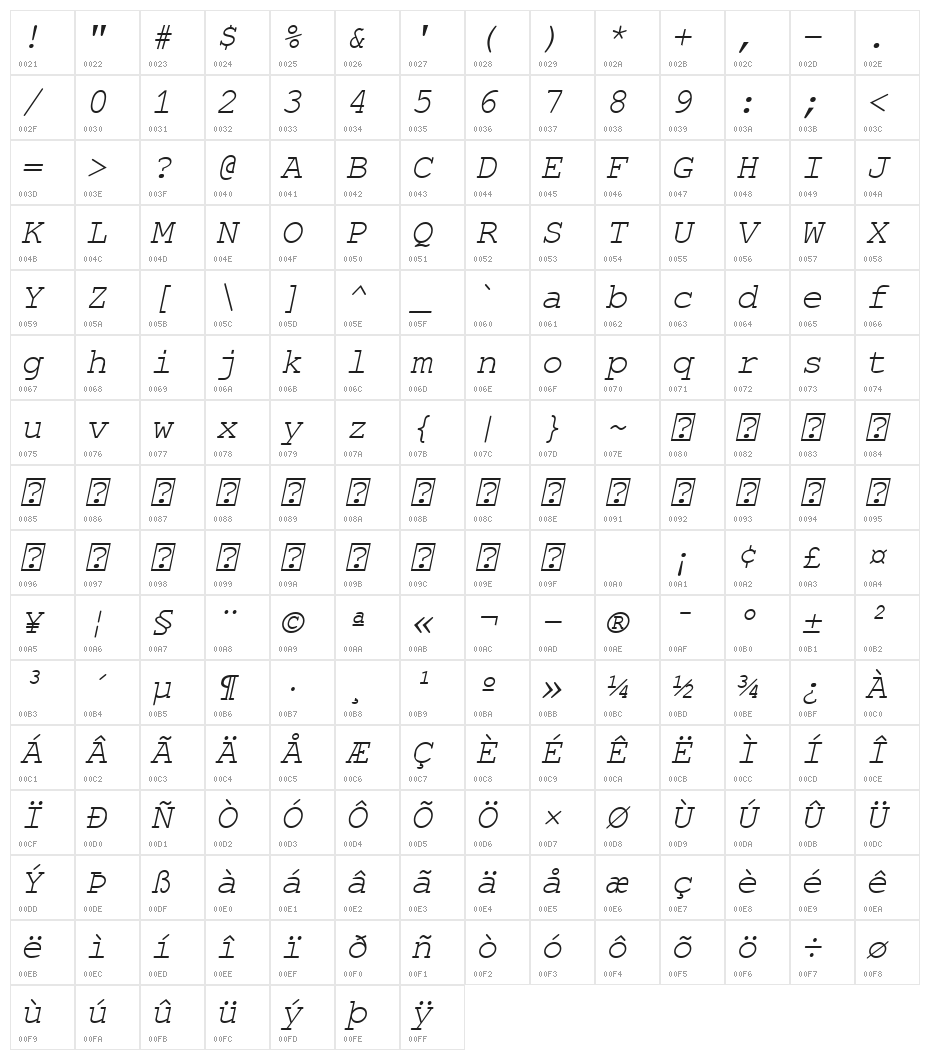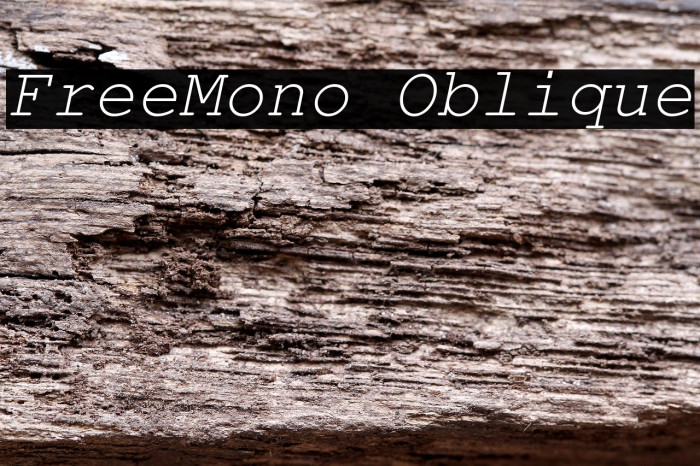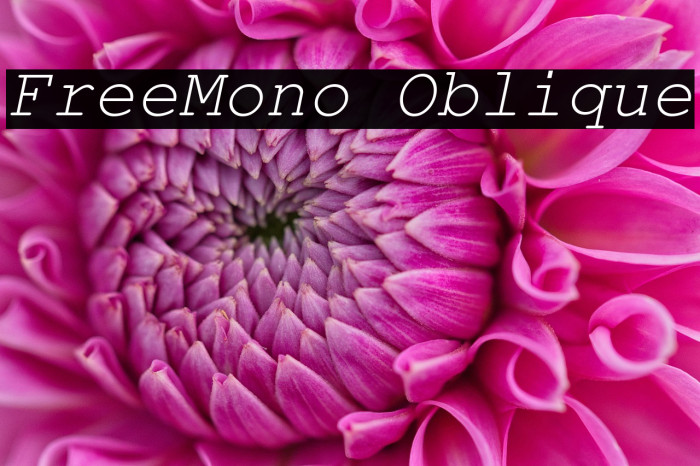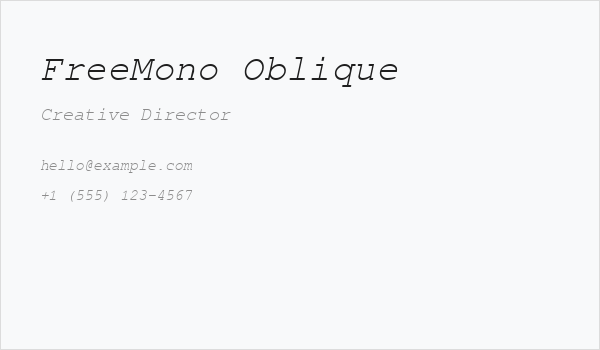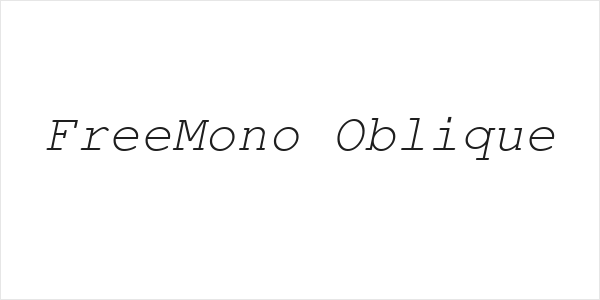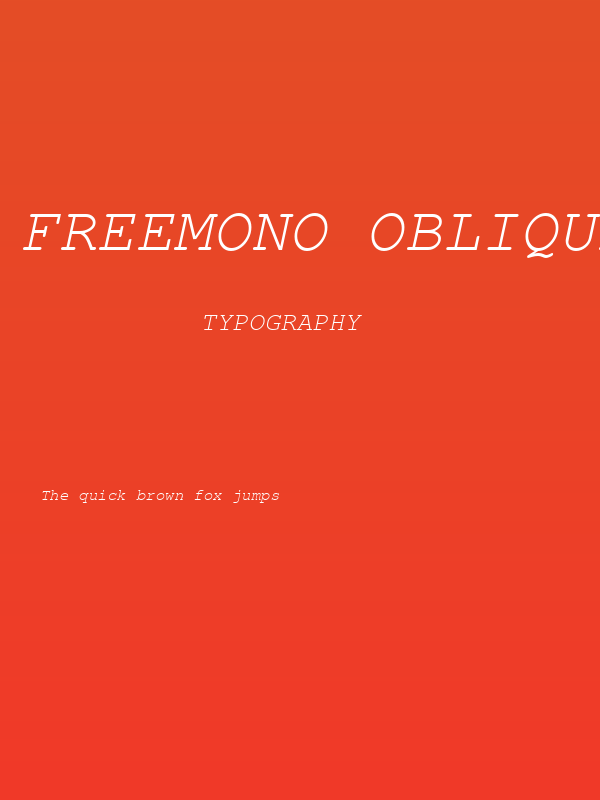
FreeMono Oblique Font
FreeMono Oblique Description
This typeface features a monospaced design with an oblique slant, giving it a distinct and modern appearance. Each character is evenly spaced, which is typical for monospaced fonts, ensuring uniformity and readability. The slant adds a dynamic and informal touch, making it suitable for various creative applications. The strokes are consistent in weight, providing a clean and uncluttered look. The font includes a full set of uppercase and lowercase letters, numerals, and a variety of punctuation marks and special characters. Its simplicity and clarity make it ideal for coding, technical documentation, and any project requiring precise alignment.
| Use Case | Coding, Technical documentation, Creative design |
| Proposed Projects | Ideal for coding, technical documentation, and creative design projects requiring a modern, uniform appearance. |